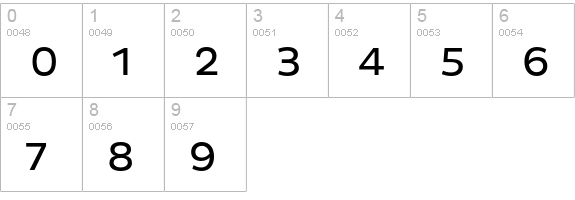
Pluto Sans Regular is the standard, neutral variant in the Pluto typeface family \xE2\x80\x94 well suited to general body text, paragraphs, and standard typographic work.
Introducing Pluto Sans Regular font, a modern and versatile typeface that effortlessly combines elegance with readability. With its clean lines and balanced proportions, Pluto Sans Regular is perfect for a wide range of design projects, from branding to editorial layouts. What makes Pluto Sans Regular even more appealing is that it is available for free download at FontsMarket.com. This means you can easily access this high-quality font without any cost, making it an ideal choice for designers looking to enhance their creative projects without breaking the bank. Whether you're working on a professional presentation, a stylish website, or a captivating poster, Pluto Sans Regular is sure to elevate your design with its timeless appeal and effortless legibility. Download this font today and unlock a world of possibilities for your next design endeavor.